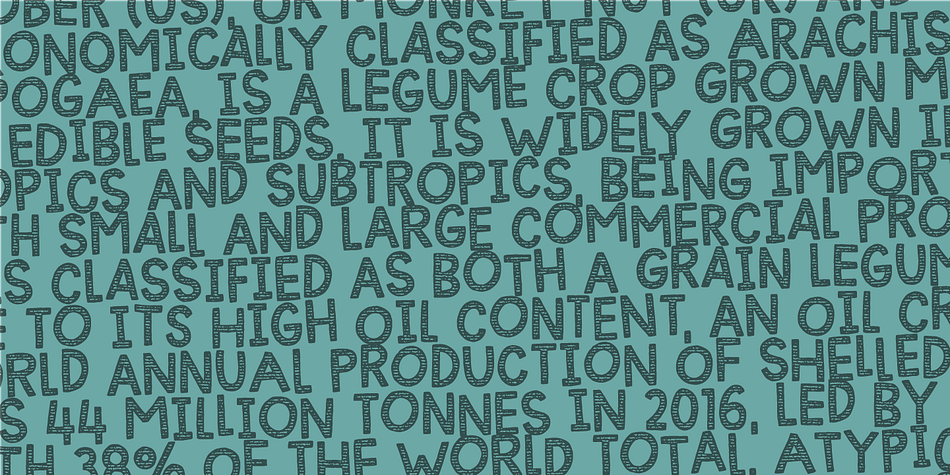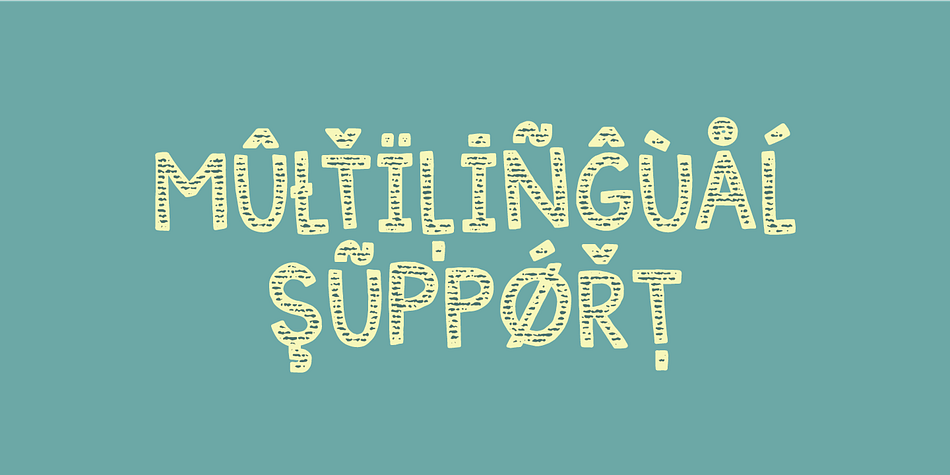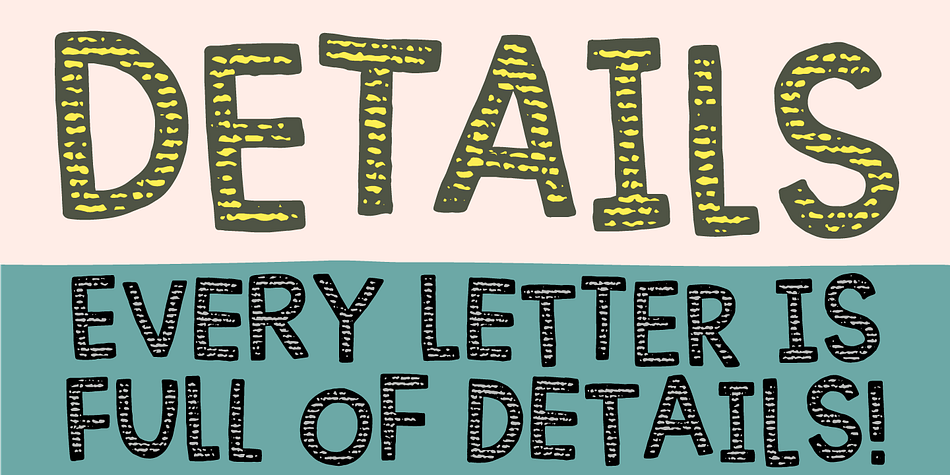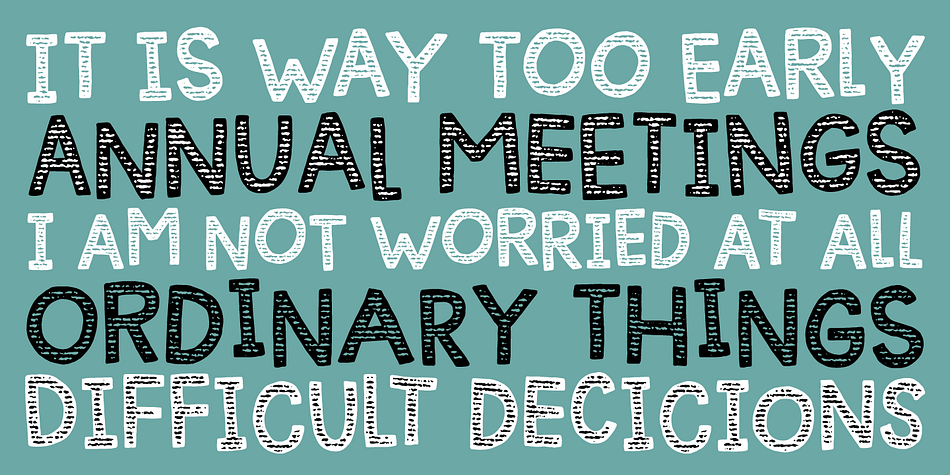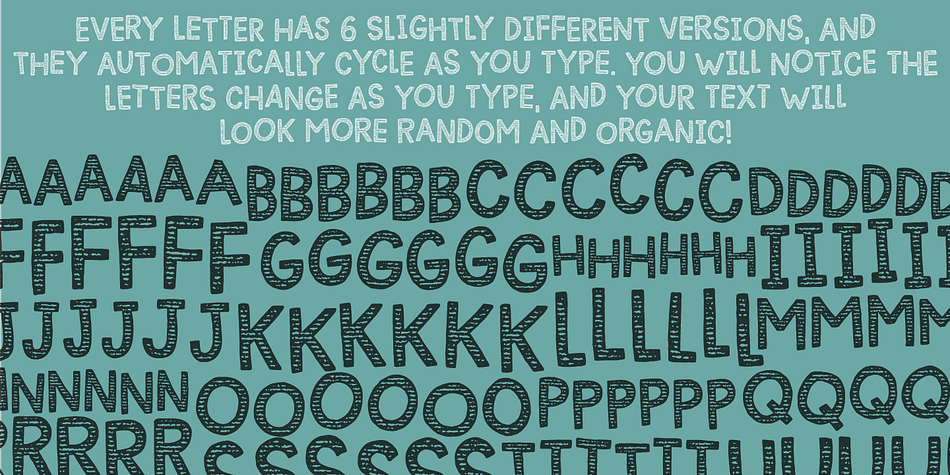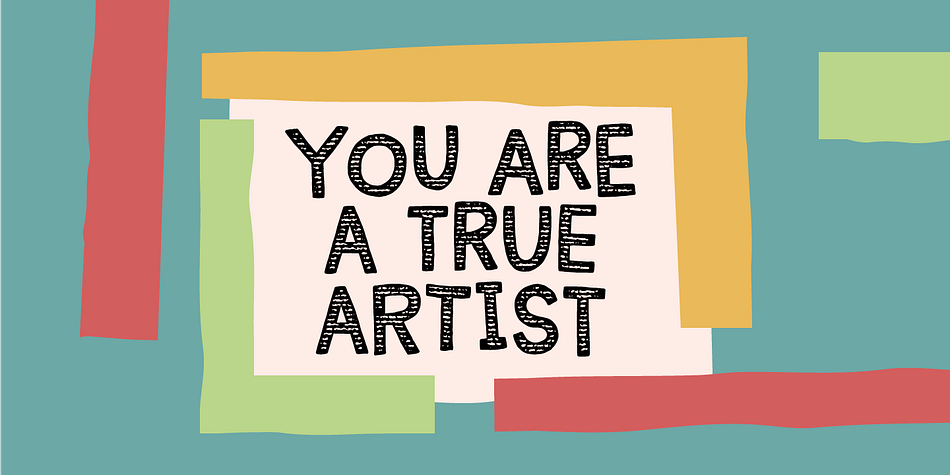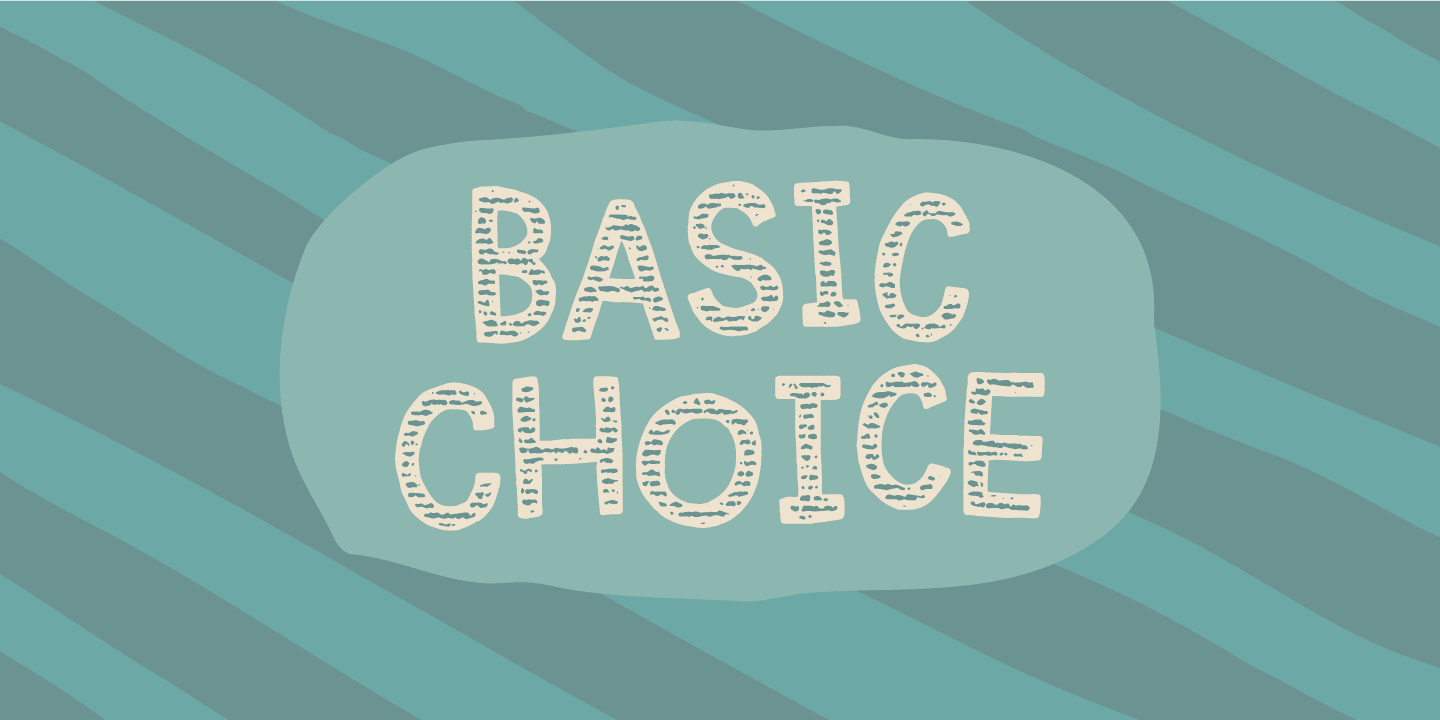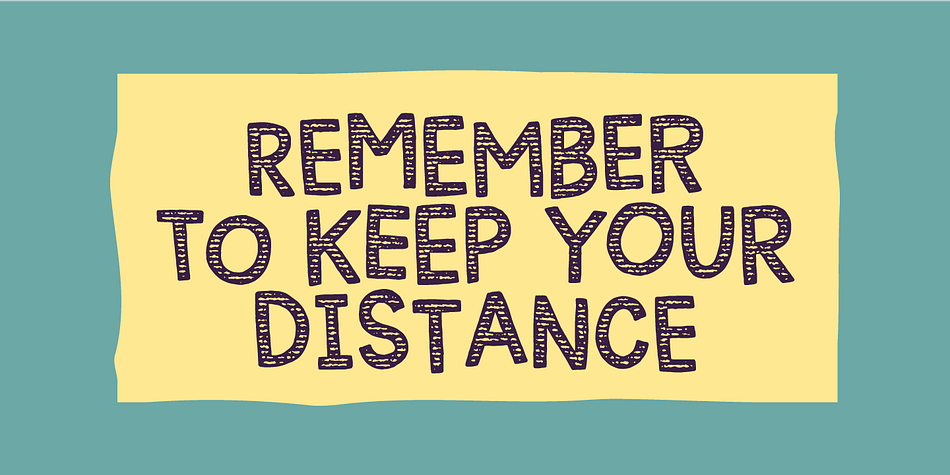
Designed by Jakob Fischer, Basic Choice is a hand display font family. This typeface has three styles and was published by Pizzadude.dk.
I don’t know what is it with me and bad copy machines these days…my previous font also had that look, like it was made using a poor copy machine! :)
Basic Choice comes in a regular, solid and distressed version - use these versions as they are, or play around and use them as layers.
Each letter has 6 different versions, and they automatically cycle as you type. It makes the text look scrambled and random at the same time!